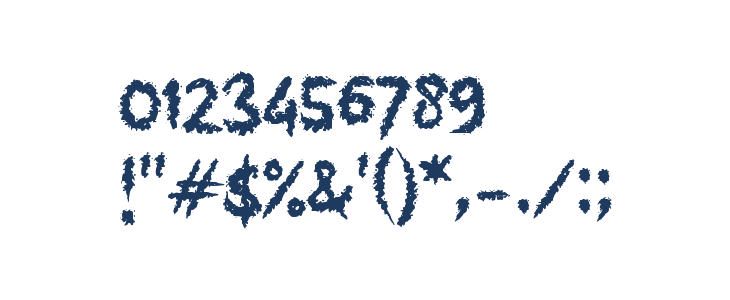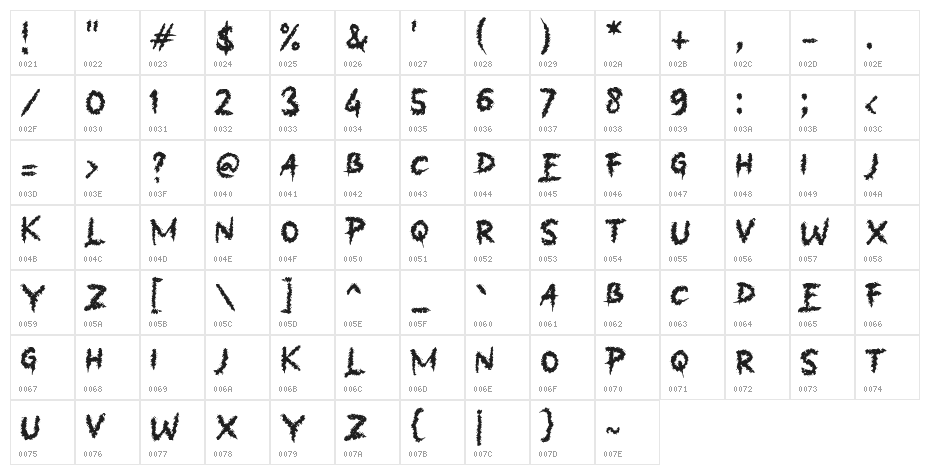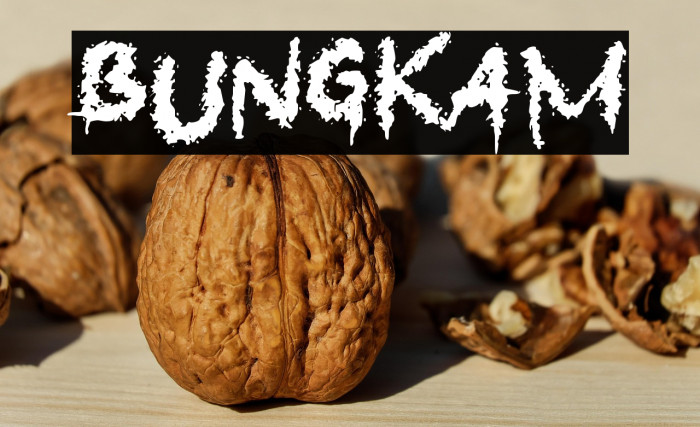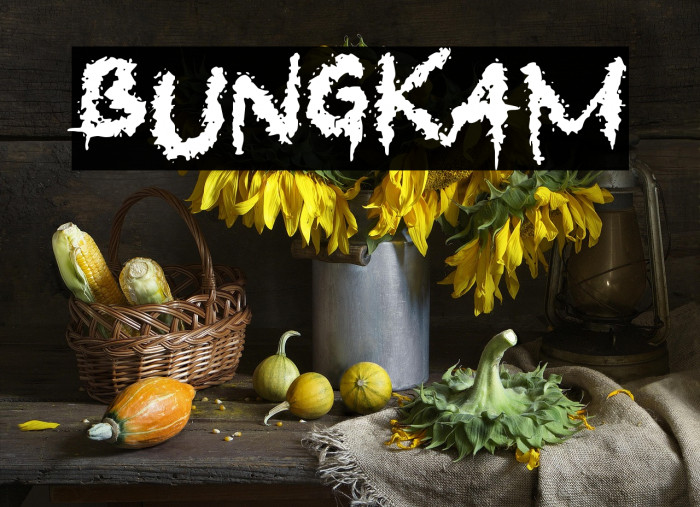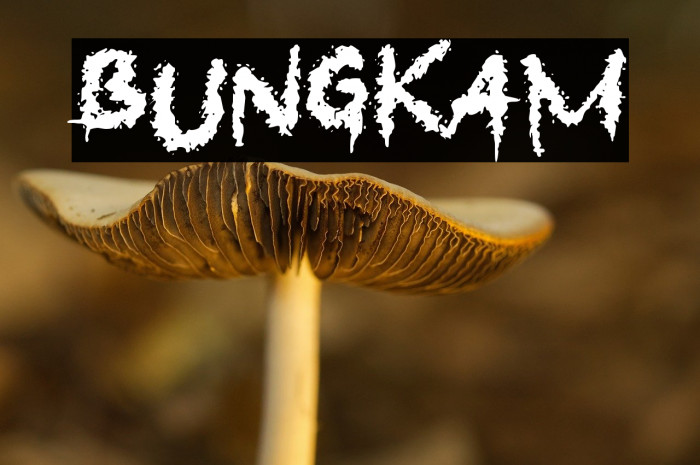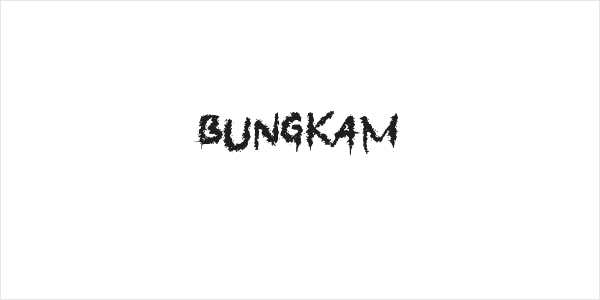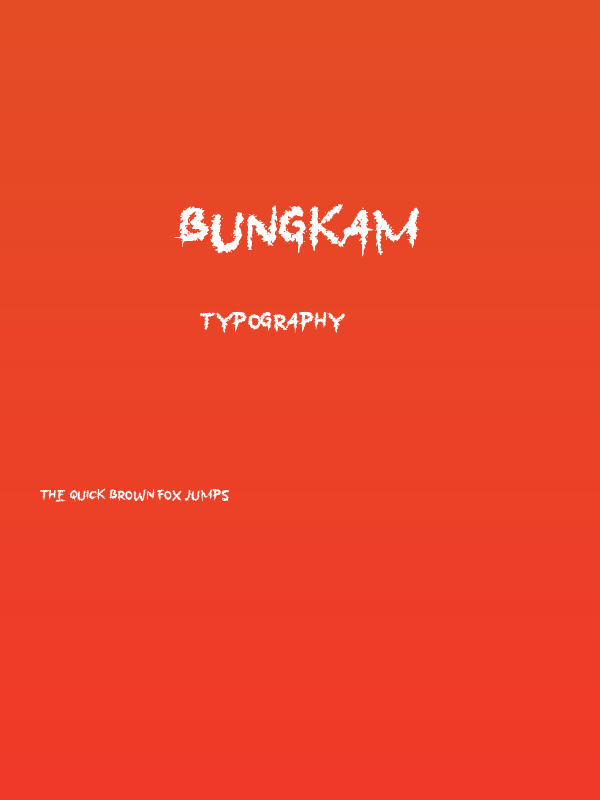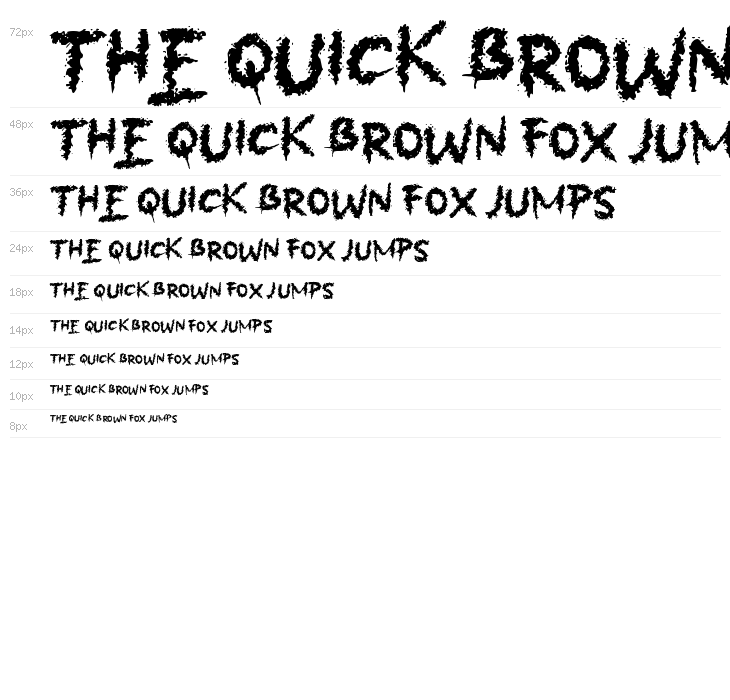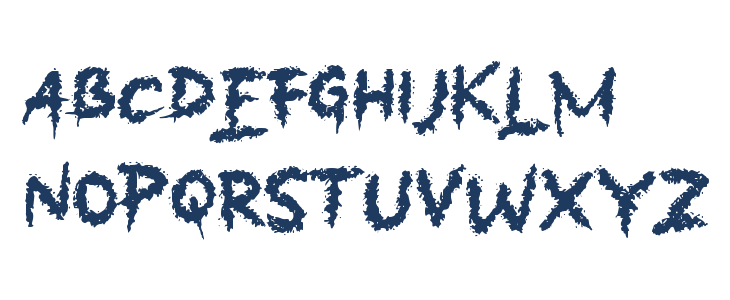
Bungkam Font
Bungkam Description
This font features a rugged, distressed appearance, reminiscent of torn paper or splattered ink. Each character is uniquely textured, giving it a chaotic and dynamic feel. The uppercase and lowercase letters maintain a consistent style, with jagged edges and irregular shapes that create a sense of movement and energy. The numbers and special characters follow the same aesthetic, ensuring a cohesive look across all elements. This font's bold and edgy design makes it stand out, ideal for projects that require a strong visual impact.
Proposed ProjectsIdeal for horror-themed posters, album covers, graffiti art, and edgy branding materials.